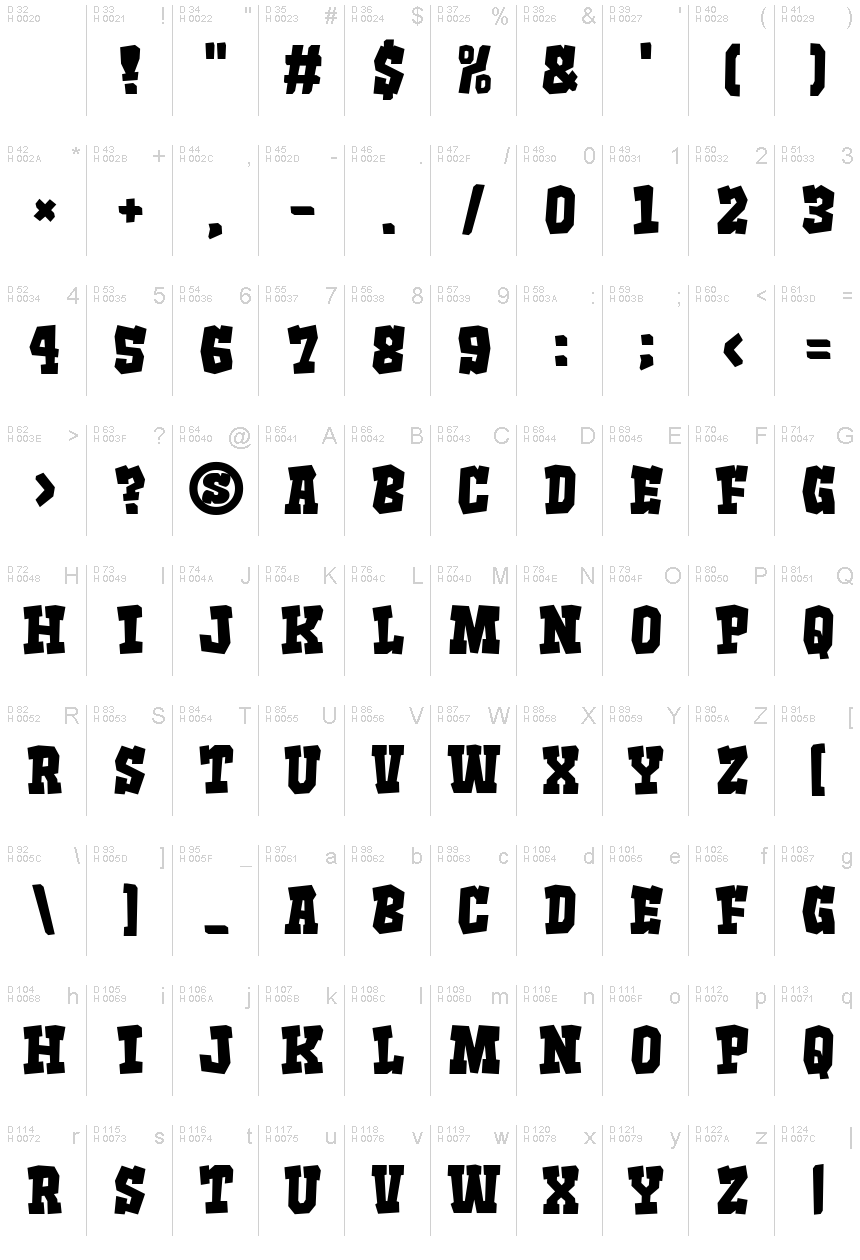
Rocks Serif
Rocks Serif, a captivating display font crafted by Goma Shin, exudes a bold and playful charm. With its distinctive cartoon-inspired aesthetic, this font immediately captures attention. The thick, textured strokes and angular terminals lend a sense of energy and dynamism, while the subtle distressed details add an endearing vintage touch. Rocks Serif's striking visual presence effortlessly evokes a sense of whimsy and lightheartedness, making it an alluring choice for a wide range of design projects.
This versatile font shines in attention-grabbing applications, such as eye-catching headlines, creative branding, and playful product packaging. Its bold and expressive nature lends itself particularly well to designs seeking to convey a playful, quirky, or retro-inspired tone. Whether crafting vibrant event posters, designing engaging social media graphics, or incorporating a touch of playfulness into web interfaces, Rocks Serif is a captivating choice that is sure to leave a memorable impression.